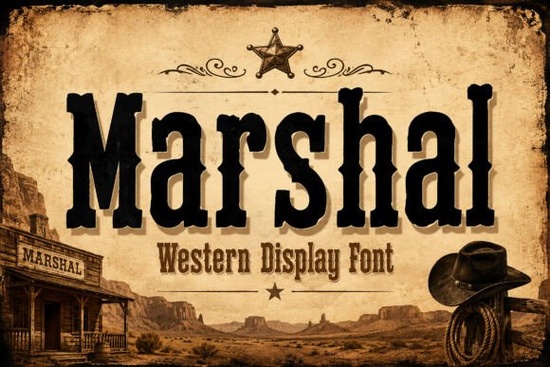
Marshal Font is a standout choice for anyone looking to add a classic western vibe to their designs. Whether you're working on branding, packaging, or creative projects with a rustic feel, this font brings a bold and authentic style that's both versatile and easy to use. Its vintage slab-serif design captures the essence of old-time cowboy typography, making it perfect for anything from logos to signage.
If you're into western-themed projects, you'll appreciate how Marshal blends nostalgia with modern usability. The font maintains clean, readable characters while delivering a rugged, aged look that works well in both digital and print formats. It supports uppercase, lowercase, numbers, and punctuation, ensuring it fits a wide range of design needs. Plus, its multilingual support makes it a great option for global projects.
For designers and creators who want to infuse their work with a sense of history and character, Marshal Font offers a unique solution. It’s ideal for branding that leans into ranch motifs, whiskey labels, country event posters, and vintage clothing designs. The font’s strong visual presence helps your projects stand out without overwhelming the overall composition.
What Makes Marshal Font Stand Out?
One of the key strengths of Marshal Font is its ability to convey a strong western aesthetic without sacrificing clarity. The letterforms are designed to be striking yet legible, which is essential when using the font for display purposes. This balance makes it suitable for a variety of applications, from large-scale signage to detailed graphics.
The font’s aged, worn look adds a layer of authenticity that can elevate any project with a retro or modern western theme. It’s especially effective when paired with other vintage elements, such as textures or patterns, to create a cohesive and immersive design. Whether you're designing for a small business or a personal project, Marshal provides a professional and distinctive touch.
How to Use Marshal Font in Your Projects
Using Marshal Font is straightforward, thanks to its clean structure and wide range of characters. You can incorporate it into logo designs, book covers, labels, and more. Its versatility means it can adapt to different styles while maintaining its signature western flair.
For those working on print-on-demand products, this font is a valuable asset. It works well on t-shirts, mugs, and other merchandise that benefit from a bold, eye-catching design. Its readability ensures that even small text remains clear and easy to read, which is important for items like packaging or product tags.
Why Choose Marshal Font for Your Designs?
Marshal Font is more than just a stylistic choice it’s a tool that helps you tell a story through typography. Its rugged, vintage-inspired design gives your work a sense of history and personality, which can resonate with audiences looking for authenticity. Whether you're creating for a brand, a personal project, or a small business, this font adds a unique touch that sets your work apart.